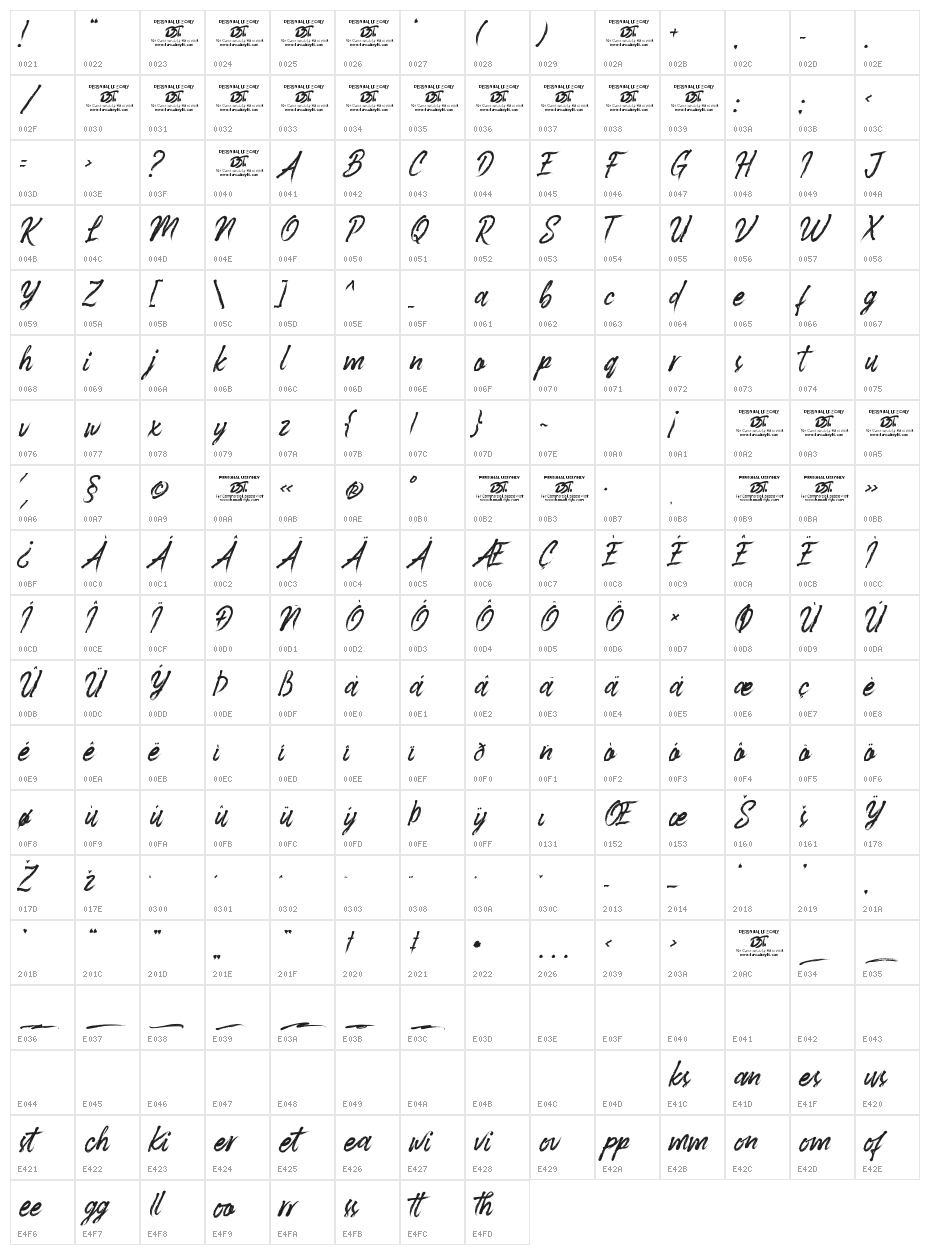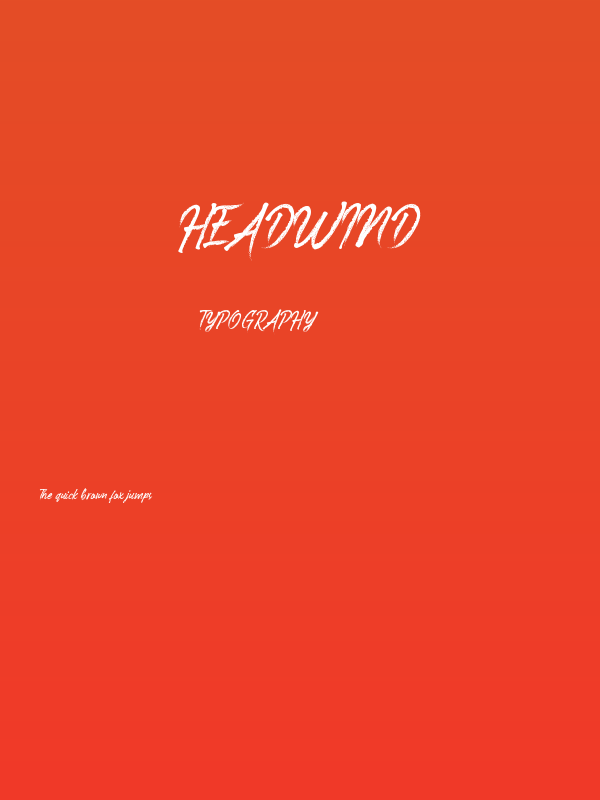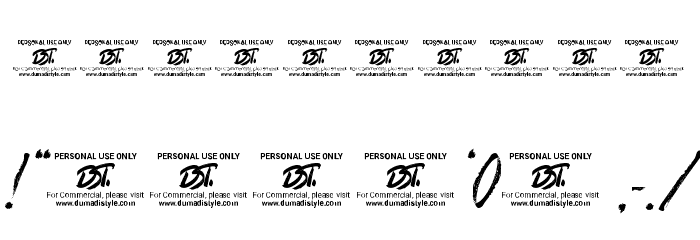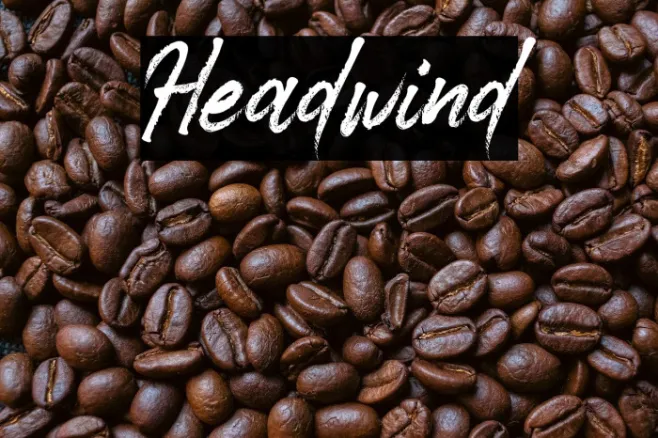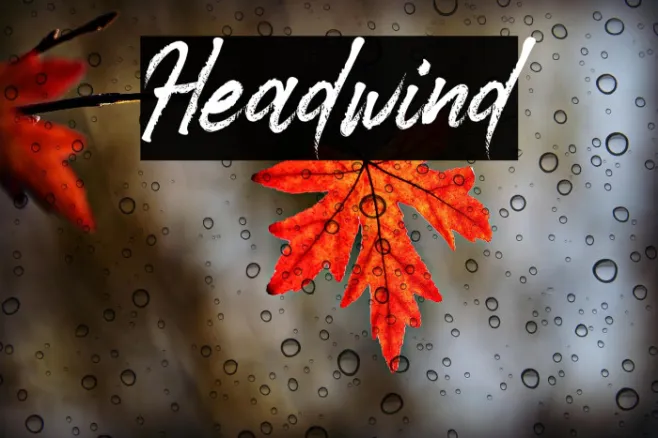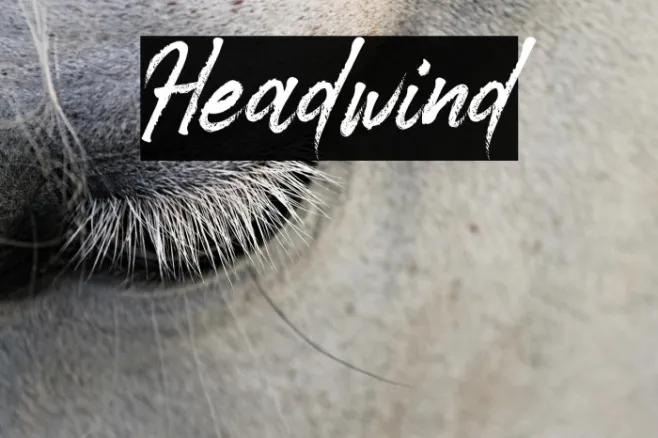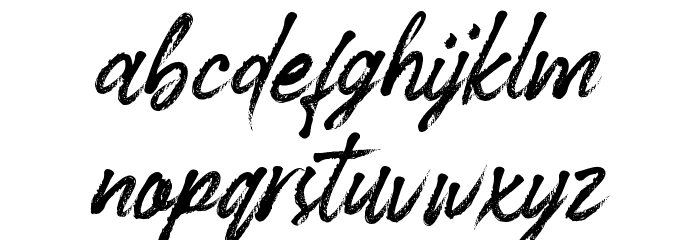
Headwind Font
Headwind Description
This font features a bold and dynamic script style, characterized by its brush-like strokes and fluid, cursive forms. The letters have a textured appearance, giving them a hand-painted look that adds a sense of movement and energy. The uppercase letters are particularly striking, with sweeping curves and dramatic flourishes, while the lowercase letters maintain a consistent flow and rhythm. The font's overall design is expressive and artistic, making it ideal for projects that require a personal or creative touch. The characters are well-spaced, ensuring readability while maintaining their artistic flair.